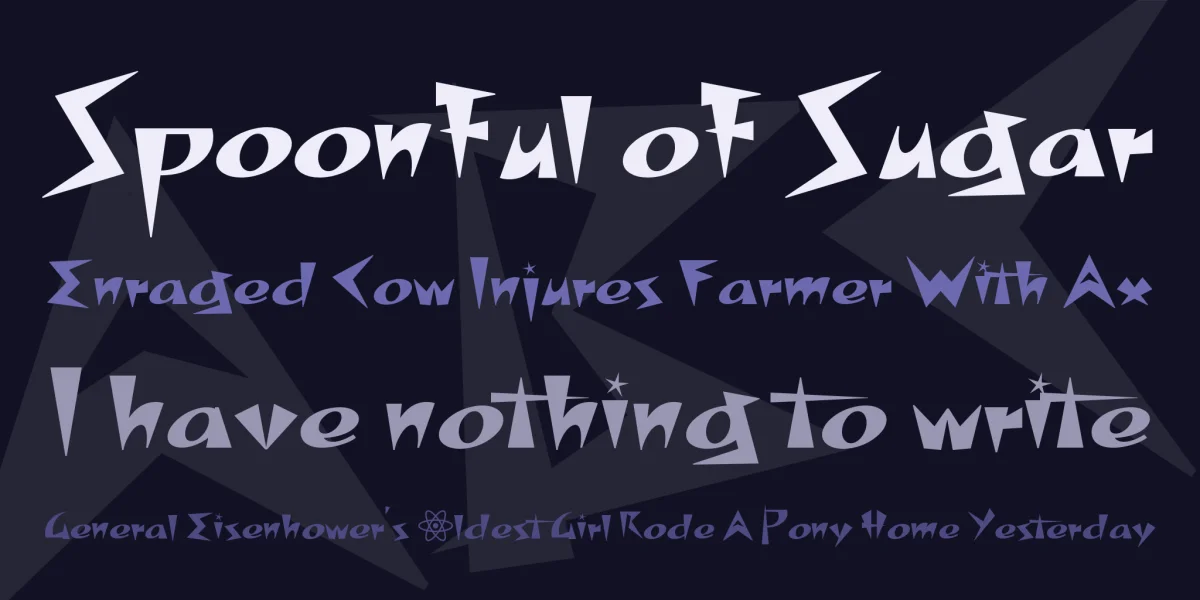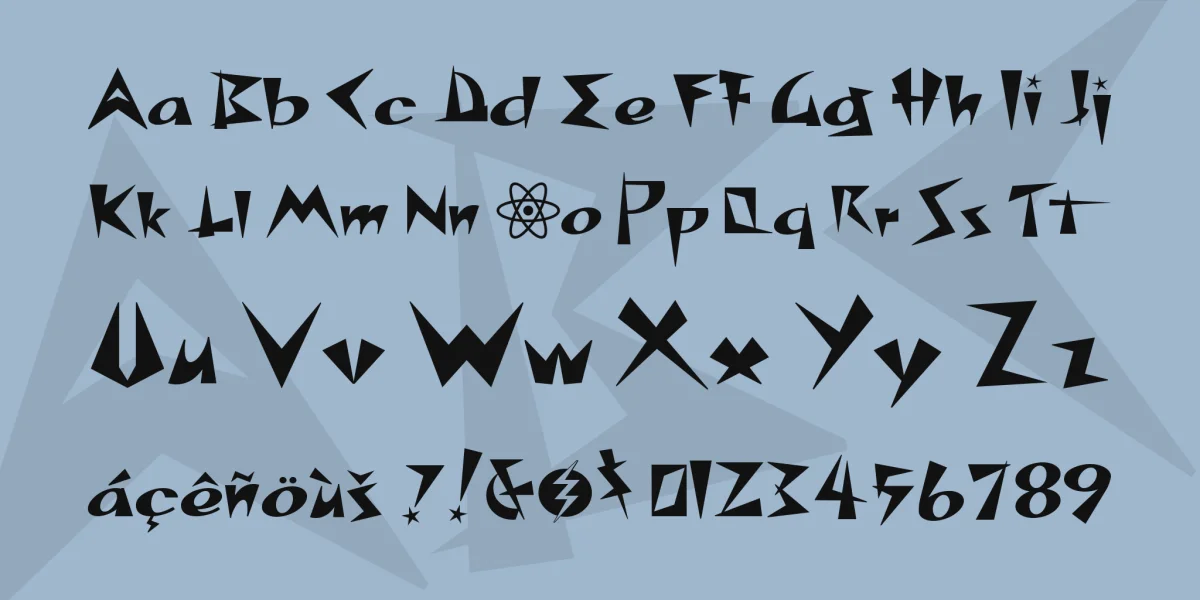
A co-worker of mine who has a business on the side selling movie and TV collectibles mentioned one day that the logotype for the 50s TV show Space Patrol was pretty wacky, and ought to be fonted. Well, he was absolutely right. The result is a little bit Jetsons, a little bit Ren & Stimpy, and a whole lotta fun.